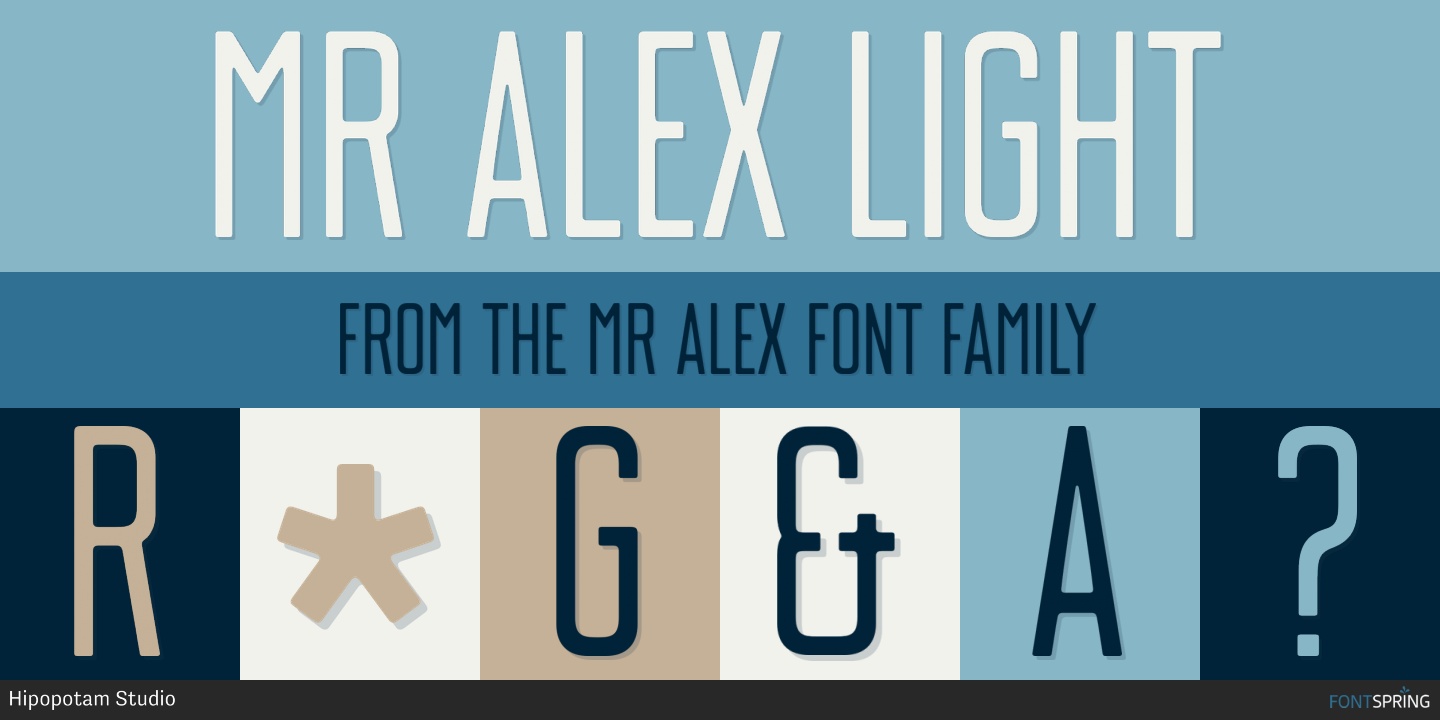
Web mr alex bold font. Votes, rated based on results identification. Web mr alex font family was designed by aleksandra and daniel mizielińscy and published by hipopotam studio.